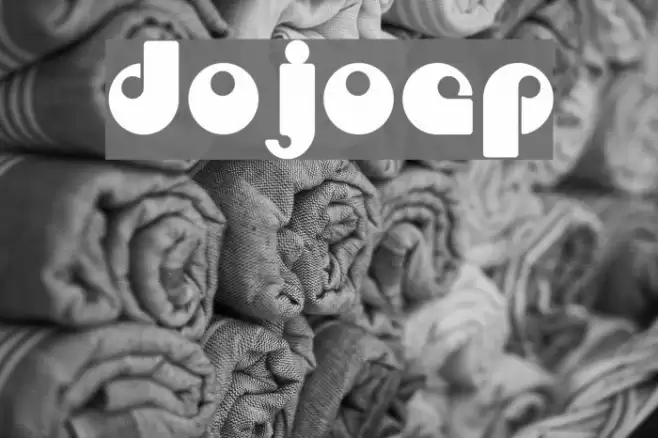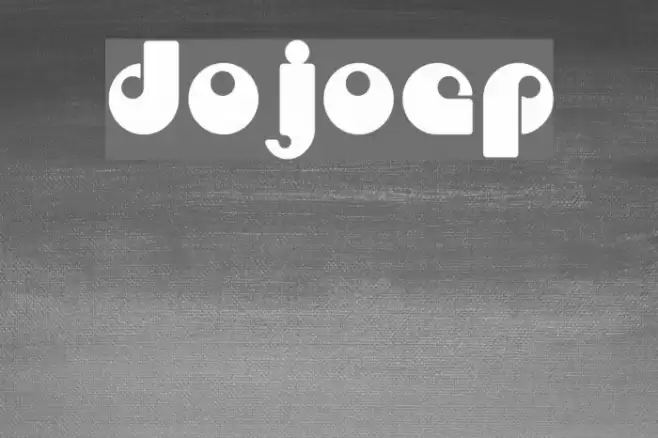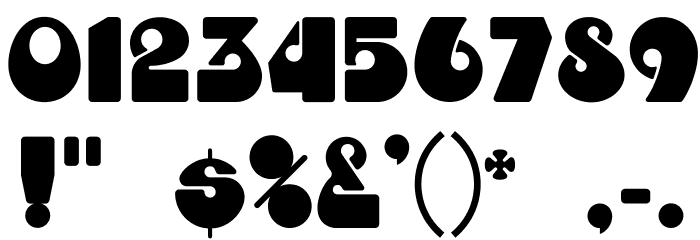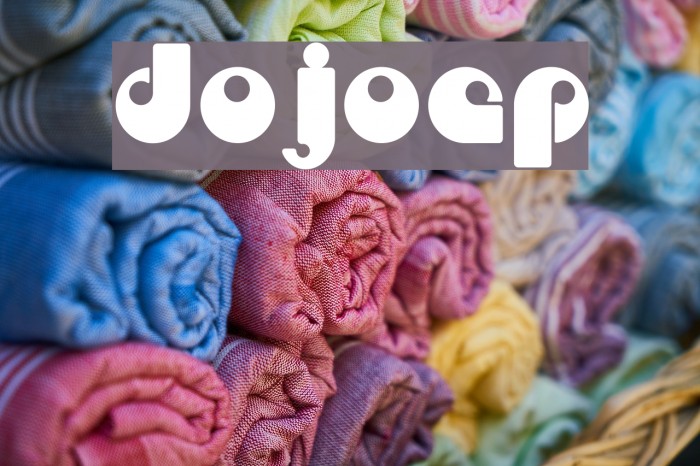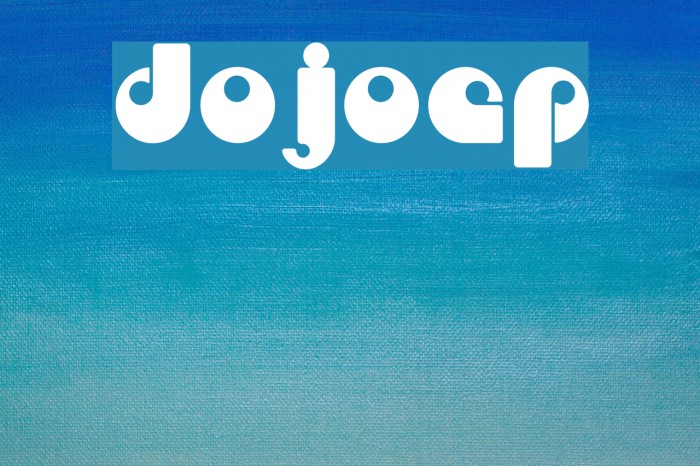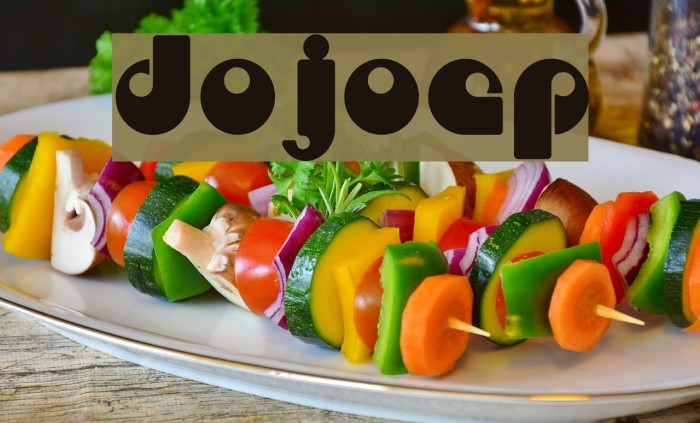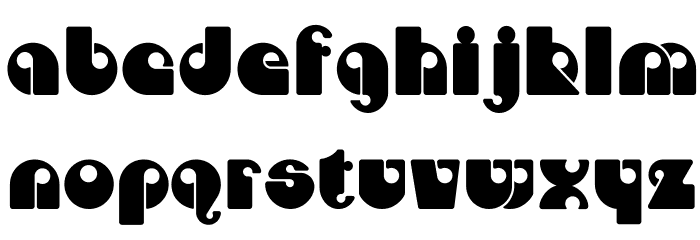
DojoCP Font
DojoCP Description
This font features a bold and playful design with a unique blend of geometric shapes and curves. The characters are characterized by their thick, block-like forms, with some letters incorporating unexpected curves and cutouts that add a whimsical touch. The numbers and special characters maintain this playful aesthetic, ensuring consistency across all glyphs. The font's boldness and distinctive style make it stand out, making it ideal for creative and eye-catching designs.
A bold, playful font with geometric shapes and whimsical curves from Fancy fonts.
- Proposed Projects: Ideal for posters, logos, and branding projects that require a bold and creative touch.
- Overall Style: Modern, Decorative